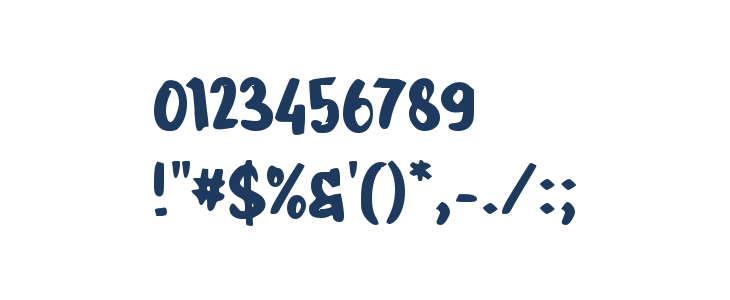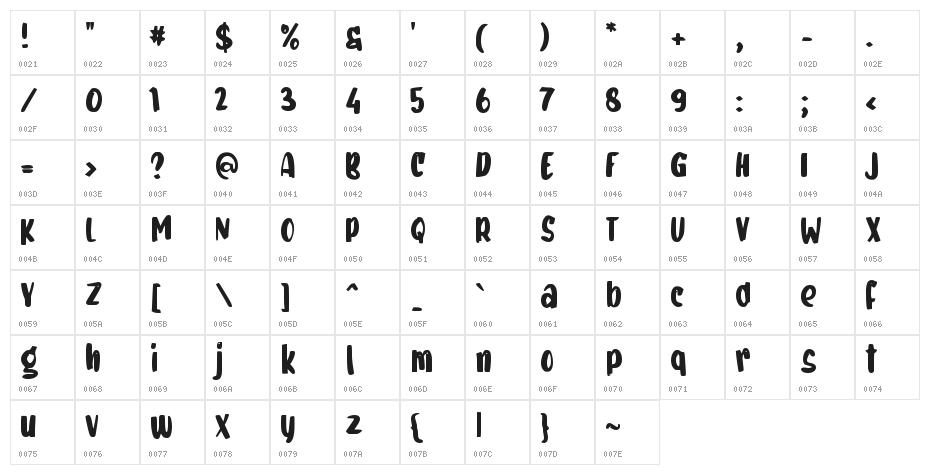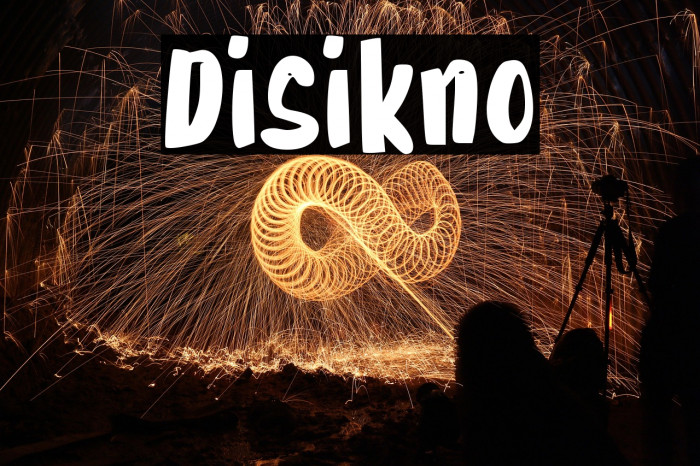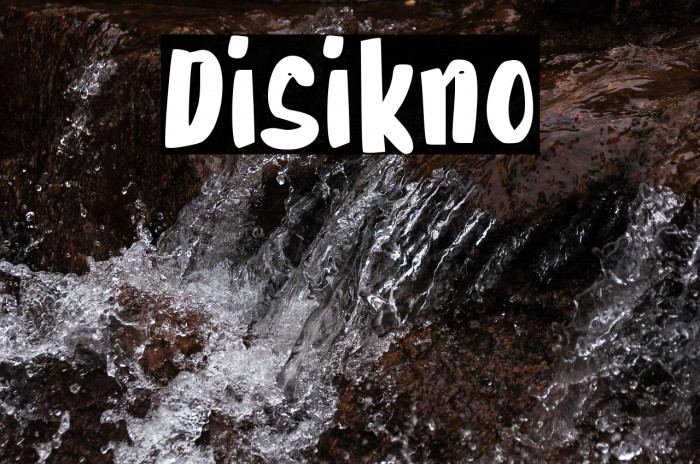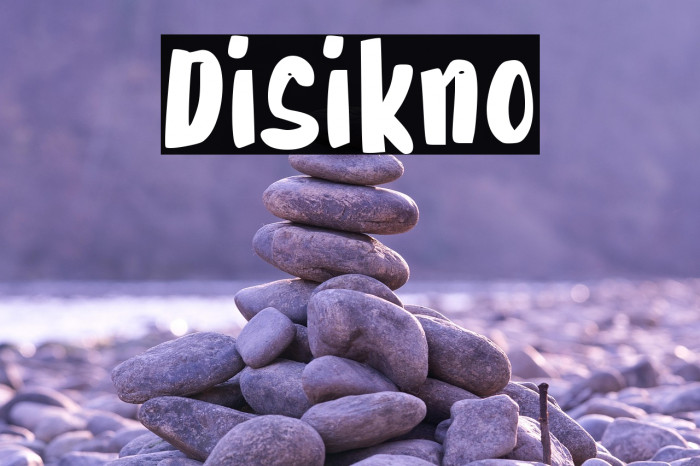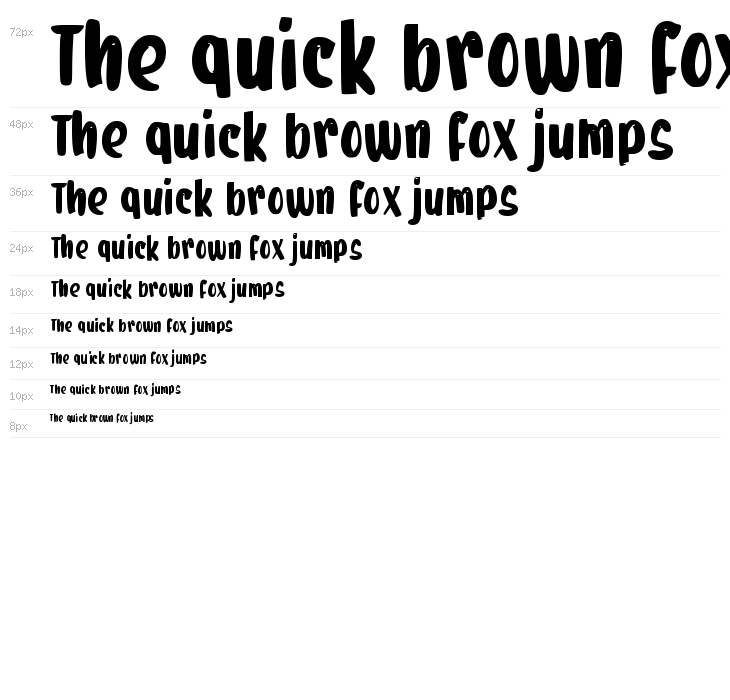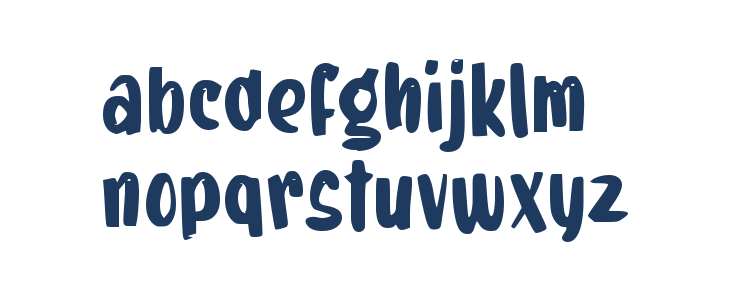
Disikno Font
Disikno Description
This playful and bold font features a hand-drawn, whimsical style with thick, uneven strokes that give it a lively and energetic appearance. The characters are slightly irregular, adding a sense of movement and personality. The uppercase and lowercase letters maintain a consistent style, with rounded edges and a friendly feel. Numbers and special characters are equally bold and expressive, making them stand out. This font is perfect for projects that require a fun and informal touch, such as children's books, posters, or creative branding.
| Overall Style | Playful |
| Proposed Projects | Ideal for children's books, playful posters, creative branding, and informal invitations. |